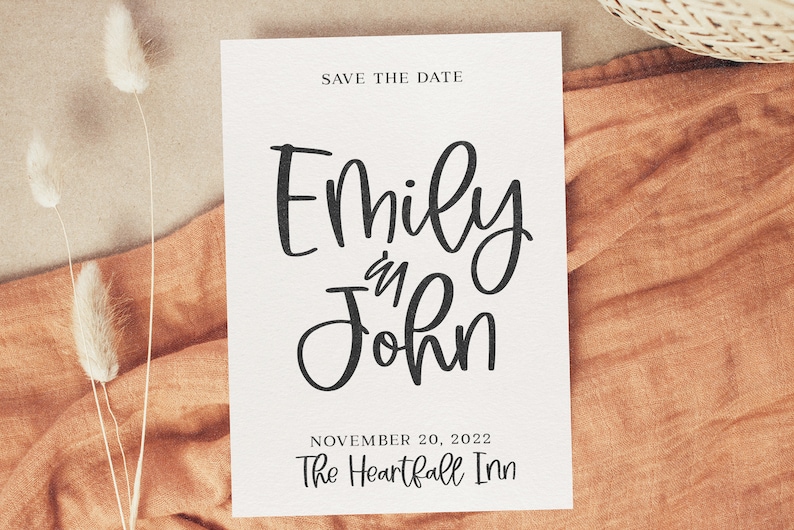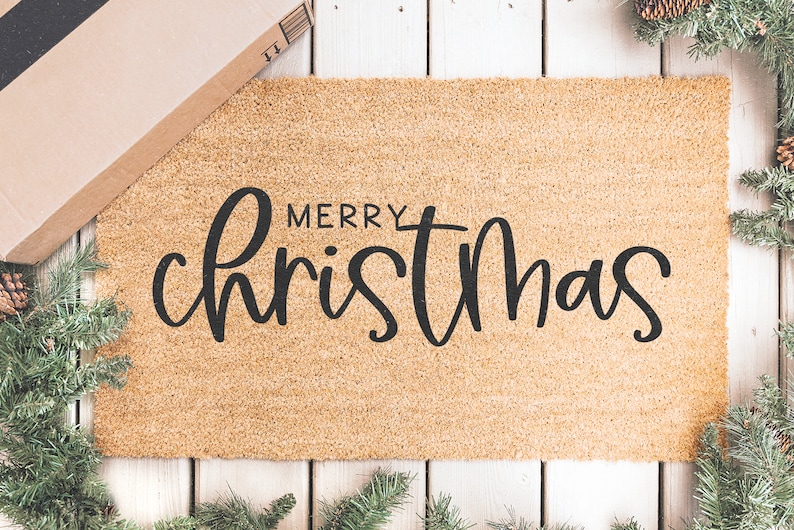
White Magnolia Font
White Magnolia Font - Votes, rated based on results identification. Download white magnolia regular otf. White magnolia regular otf (400) font. This font is perfect for cricut projects, farmhouse signs, wedding decor,. This font is perfect for svg designs, shirts, crafts, farmhouse designs, procreate, cricut. Web check out our white magnolia font selection for the very best in unique or custom, handmade pieces from our papercraft shops. Web white magnolia font a handwritten script font with a bouncy and unique look!
Web white magnolia font a handwritten script font with a bouncy and unique look! This font is perfect for cricut projects, farmhouse signs, wedding decor,. Download white magnolia regular otf. Votes, rated based on results identification. This font is perfect for svg designs, shirts, crafts, farmhouse designs, procreate, cricut. White magnolia regular otf (400) font. Web check out our white magnolia font selection for the very best in unique or custom, handmade pieces from our papercraft shops.
Web check out our white magnolia font selection for the very best in unique or custom, handmade pieces from our papercraft shops. This font is perfect for cricut projects, farmhouse signs, wedding decor,. Votes, rated based on results identification. White magnolia regular otf (400) font. Download white magnolia regular otf. This font is perfect for svg designs, shirts, crafts, farmhouse designs, procreate, cricut. Web white magnolia font a handwritten script font with a bouncy and unique look!
White magnolia regular otf (400) font. Votes, rated based on results identification. Web check out our white magnolia font selection for the very best in unique or custom, handmade pieces from our papercraft shops. Web white magnolia font a handwritten script font with a bouncy and unique look! This font is perfect for svg designs, shirts, crafts, farmhouse designs, procreate,.
This font is perfect for cricut projects, farmhouse signs, wedding decor,. Web white magnolia font a handwritten script font with a bouncy and unique look! Web check out our white magnolia font selection for the very best in unique or custom, handmade pieces from our papercraft shops. This font is perfect for svg designs, shirts, crafts, farmhouse designs, procreate, cricut..
This font is perfect for cricut projects, farmhouse signs, wedding decor,. White magnolia regular otf (400) font. Votes, rated based on results identification. Web check out our white magnolia font selection for the very best in unique or custom, handmade pieces from our papercraft shops. Download white magnolia regular otf.
Download white magnolia regular otf. Votes, rated based on results identification. Web white magnolia font a handwritten script font with a bouncy and unique look! White magnolia regular otf (400) font. This font is perfect for cricut projects, farmhouse signs, wedding decor,.
Web white magnolia font a handwritten script font with a bouncy and unique look! Votes, rated based on results identification. This font is perfect for svg designs, shirts, crafts, farmhouse designs, procreate, cricut. Download white magnolia regular otf. Web check out our white magnolia font selection for the very best in unique or custom, handmade pieces from our papercraft shops.
This font is perfect for cricut projects, farmhouse signs, wedding decor,. Download white magnolia regular otf. Web check out our white magnolia font selection for the very best in unique or custom, handmade pieces from our papercraft shops. Votes, rated based on results identification. Web white magnolia font a handwritten script font with a bouncy and unique look!
White magnolia regular otf (400) font. Web check out our white magnolia font selection for the very best in unique or custom, handmade pieces from our papercraft shops. This font is perfect for cricut projects, farmhouse signs, wedding decor,. This font is perfect for svg designs, shirts, crafts, farmhouse designs, procreate, cricut. Votes, rated based on results identification.
Web white magnolia font a handwritten script font with a bouncy and unique look! This font is perfect for cricut projects, farmhouse signs, wedding decor,. Web check out our white magnolia font selection for the very best in unique or custom, handmade pieces from our papercraft shops. Download white magnolia regular otf. Votes, rated based on results identification.
This font is perfect for cricut projects, farmhouse signs, wedding decor,. Web white magnolia font a handwritten script font with a bouncy and unique look! White magnolia regular otf (400) font. Web check out our white magnolia font selection for the very best in unique or custom, handmade pieces from our papercraft shops. Votes, rated based on results identification.
Votes, Rated Based On Results Identification.
Web check out our white magnolia font selection for the very best in unique or custom, handmade pieces from our papercraft shops. Download white magnolia regular otf. White magnolia regular otf (400) font. This font is perfect for svg designs, shirts, crafts, farmhouse designs, procreate, cricut.
Web white magnolia font a handwritten script font with a bouncy and unique look!